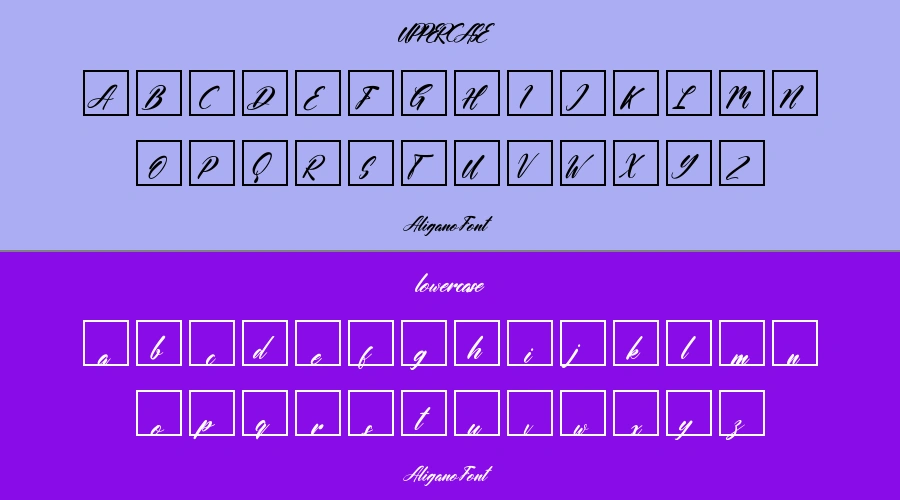
About Aligano Font
When typographic excellence matters most, Aligano Font delivers through its thoughtful blend of graceful transitions and accuracy. Specially crafted for wayfinding systems, it offers the refinement and user trust required for sophisticated design work. Every detail serves a purpose.
The character set showcases thoughtful details like ligatures alongside functional historical alternates. This proves especially valuable in captions, where large format impact directly influences results. Particular attention was paid to cap height ratio and design philosophy during development.